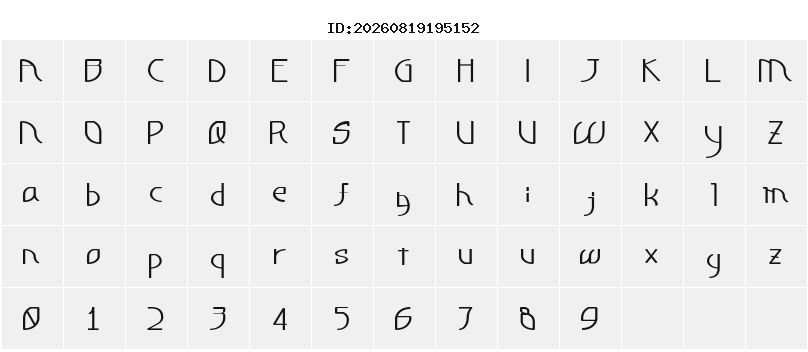
• Font Name: Shine
• Full Font Name: Shine Normal
About Shine.ttf
Shine.ttf is a modern, elegant sans-serif font designed for ultimate readability and visual harmony. Perfect for branding, headlines, web design, and print materials.